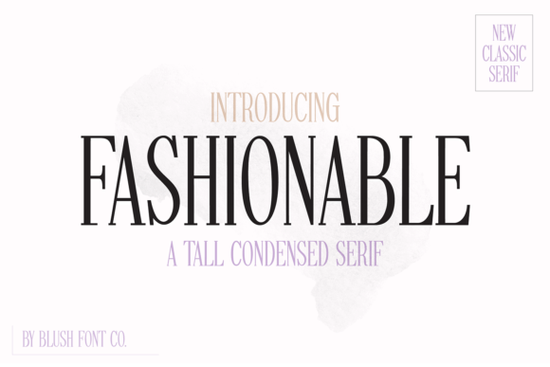
If you're looking for a serif font that feels both modern and timeless something that adds quiet confidence to greeting cards, boutique packaging, or social media graphics Fashionable Font is worth your attention. It’s not overly dramatic or fussy, but it does stand out: tall, slender letterforms with gentle serifs and subtle contrast. Think of it as the kind of typeface you’d choose for a small-batch candle label or a wedding invitation suite where elegance matters, but pretension doesn’t belong.
When does Fashionable Font work best?
This font shines in contexts where clarity and character go hand in hand. Because it’s tall and light, it reads well at medium sizes (16–32 pt) on both screen and print but avoid using it below 14 pt for body text. It pairs especially well with clean sans-serifs for contrast, or with other delicate serifs if you’re building a cohesive typographic system.
Small businesses love it for product tags, Instagram story headers, and minimalist business cards. Crafters use it for printable wall art or embroidery patterns where legibility and charm matter equally. Print-on-demand sellers find it useful for niche markets like bridal stationery, wellness branding, or vintage-inspired apparel designs especially when paired with soft color palettes and subtle textures.
How is it different from other stylish serif fonts?
Unlike bolder display serifs like Zaslia Font, which leans into high-contrast drama, Fashionable Font keeps things airy and approachable. It’s more restrained than Vogue Font, which has stronger vertical stress and editorial flair. And while Sport Bundle Font brings energetic rhythm and variation, Fashionable Font offers consistency and calm ideal when you want typography to support, not compete with, your message.
You’ll also notice its lowercase ‘a’, ‘g’, and ‘y’ have gentle curves not overly stylized, but just distinctive enough to feel intentional. That small detail helps it hold up across formats without looking generic.
What projects pair well with this font?
- Wedding & event design: Save-the-dates, menus, and signage especially when printed on textured paper or foil-stamped.
- Small-batch product branding: Soap labels, tea box typography, or apothecary-style packaging where femininity and refinement align.
- Digital content: Instagram quote posts, Pinterest pins, or Canva templates aimed at creative audiences who appreciate subtlety over saturation.
- Craft kits & printables: Embroidery patterns, coloring book headers, or planner stickers where readability and charm are equally important.
It’s not designed for long paragraphs or technical documentation this isn’t a workhorse text font. But as a voice for short, meaningful phrases? It delivers with quiet confidence.
Where to use it and where to step back
Use Fashionable Font when you want to signal care, thoughtfulness, or understated sophistication. Avoid pairing it with heavy, condensed sans-serifs or ultra-bold display fonts unless you’re intentionally creating contrast for visual impact. Also, steer clear of low-resolution screens or thin paper stocks its fine serifs can blur or bleed if output conditions aren’t ideal.
And if you’re exploring serif fonts for the first time, start simple: try Fashionable Font in black on white, at 24 pt, centered on a half-sheet of cardstock. See how it feels before layering textures or colors. Good typography often starts with restraint not decoration.
A quick checklist before downloading
- ✅ You need a serif font that’s feminine but not fragile tall and graceful, not delicate to the point of fragility.
- ✅ Your project uses short phrases (not long blocks of text), and benefits from visual breathing room.
- ✅ You’re comfortable pairing it with neutral or muted color schemes pastels, creams, charcoal, or soft sage work especially well.